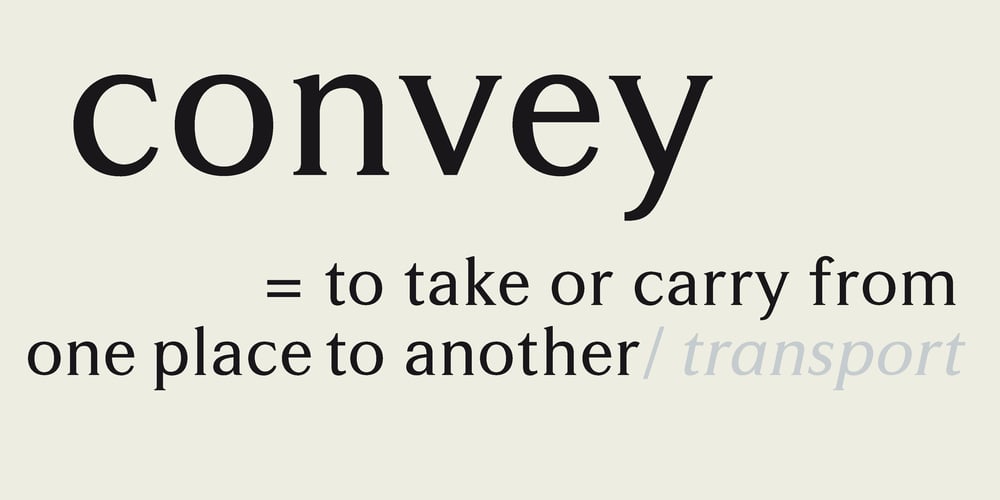
Convey Font Family was designed by Gabriele Lenz and published by Wannatype. Convey contains 6 styles and family package options. The convey typefont family merges essential features of classical serifs and sans-serifs and creates a character with a contemporary, open appearance. The elements of an antiqua typeface are formally reduced to a minimum, still supporting the eye in keeping lines and maintaining outstanding reading properties. The font was created as a cooperation project with media theorists and was designed and perfected through analyses, reading tests and the application of media psychological and sociological findings.